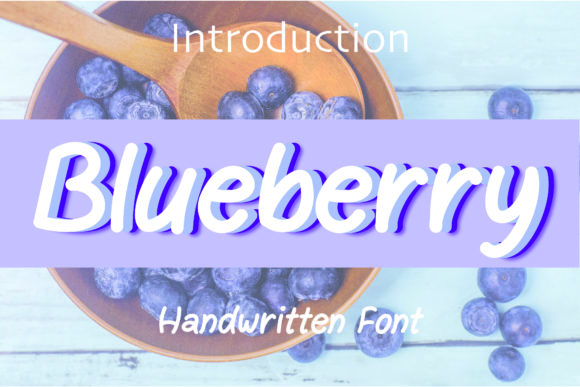
The Blueberry Font: A Sweet Addition to Your Design Toolbox
I’ll never forget the time I was working on a project for a client’s summer-themed branding campaign. I had all the elements in place – the color palette, the logo concept, and the overall aesthetic – but something was missing. That’s when I realized I needed the perfect font to tie everything together. After hours of searching, I stumbled upon the Blueberry font, and it was love at first sight! 💕
Blueberry is a cute and flexible handwritten font that has become a staple in my design toolbox. Its natural and unique style makes it incredibly fitting to a large pool of designs. In this article, I’ll share my honest review of the Blueberry font, provide a practical guide on how to use it, and explore its endless variations.
- 💖 Unique and natural handwritten style that adds a personal touch to any design
- ✅ Highly versatile and adaptable to various design projects, from branding to packaging
- 🎉 Endless variations and possibilities with OpenType features and glyphs
- 👍 Easy to read and works well in both digital and print formats
- ⚠️ Some characters may not work well in very small font sizes (less than 10pt)
- ⚠️ Limited availability of certain special characters or diacritical marks
The Story Behind Blueberry Font
The Blueberry font was designed by a talented type designer who wanted to create a font that captured the essence of handwritten notes and letters. Inspired by the natural world and the imperfections of handwriting, Blueberry was born. With its unique and flexible style, it’s no wonder that Blueberry has become a favorite among designers and crafters.
Q: What is the Blueberry font best suited for?
A: The Blueberry font is highly versatile and can be used for a wide range of design projects, from branding and packaging to digital graphics and print materials.